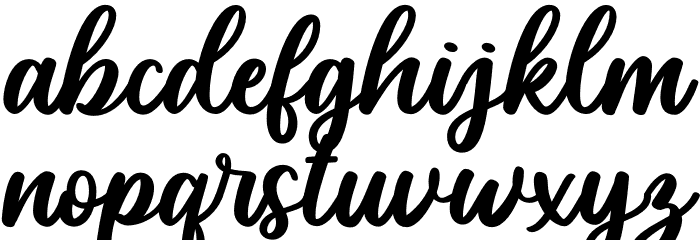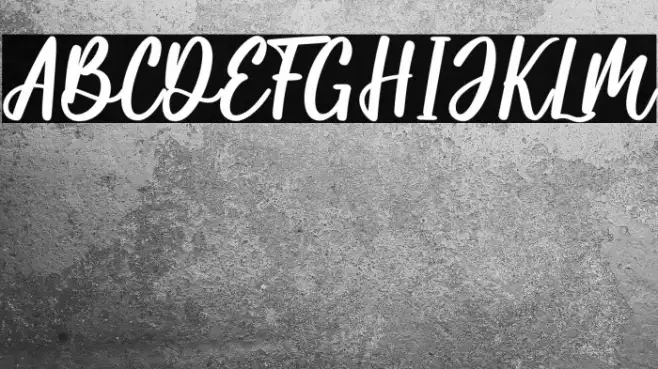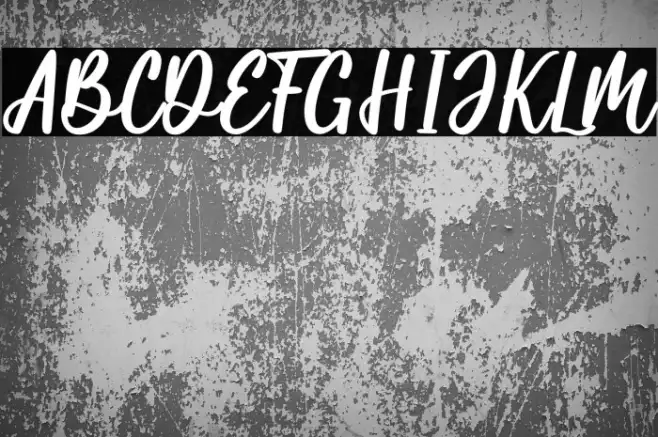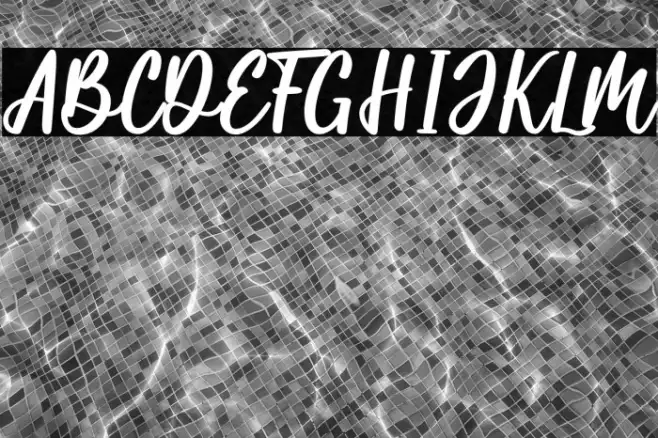
Monday-Personal Use Font
This font features a lively and flowing script style, characterized by its smooth, cursive strokes and a handwritten appearance. The uppercase letters are bold and slightly slanted, giving a sense of movement and elegance. The lowercase letters maintain a consistent flow, with rounded edges and a playful touch. Numbers and special characters are designed to match the overall cursive theme, ensuring a cohesive look across all elements. The font's style is both modern and casual, making it suitable for a variety of creative projects.
A lively, flowing script font with a modern, handwritten style.
- Font: Monday-Personal Use
- Proposed Projects: Ideal for personal branding, invitations, greeting cards, and social media graphics.
- Category: Script
- Use Case: Logos, Headlines, Invitations